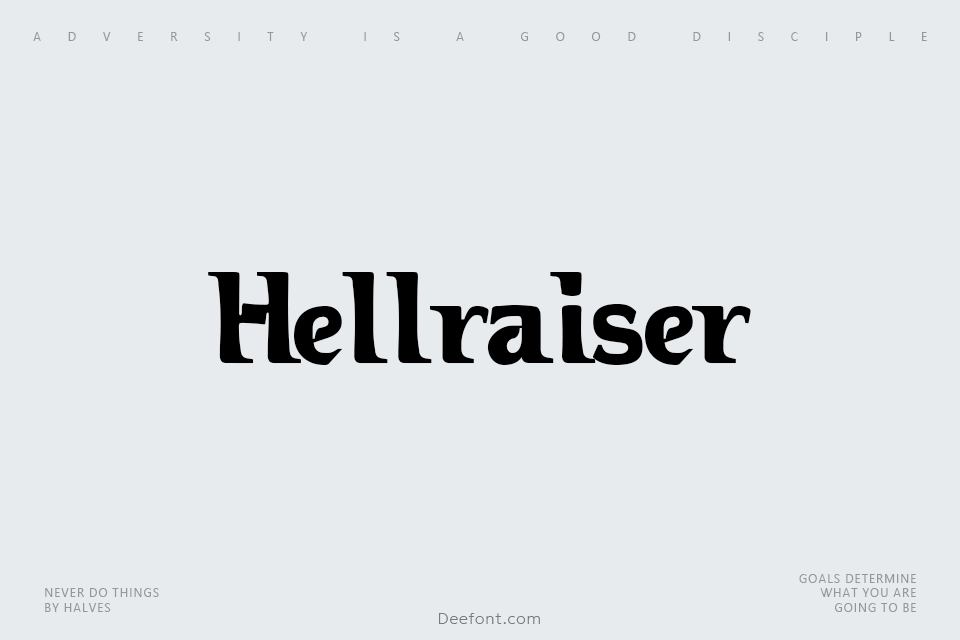
Hellraiser 3 Font
Hellraiser 3 is a bold and menacing display font that captures the intensity of its namesake with sharp, aggressive letterforms perfect for creating dramatic visual impact. This gothic-modern typeface delivers powerful typography for posters, album covers, horror-themed designs, and any project demanding an edgy, commanding presence. With its distinctive character and commanding presence, Hellraiser 3 transforms ordinary text into striking visual statements. The font includes multiple styles and variations, offering versatility for creative professionals seeking to push design boundaries.